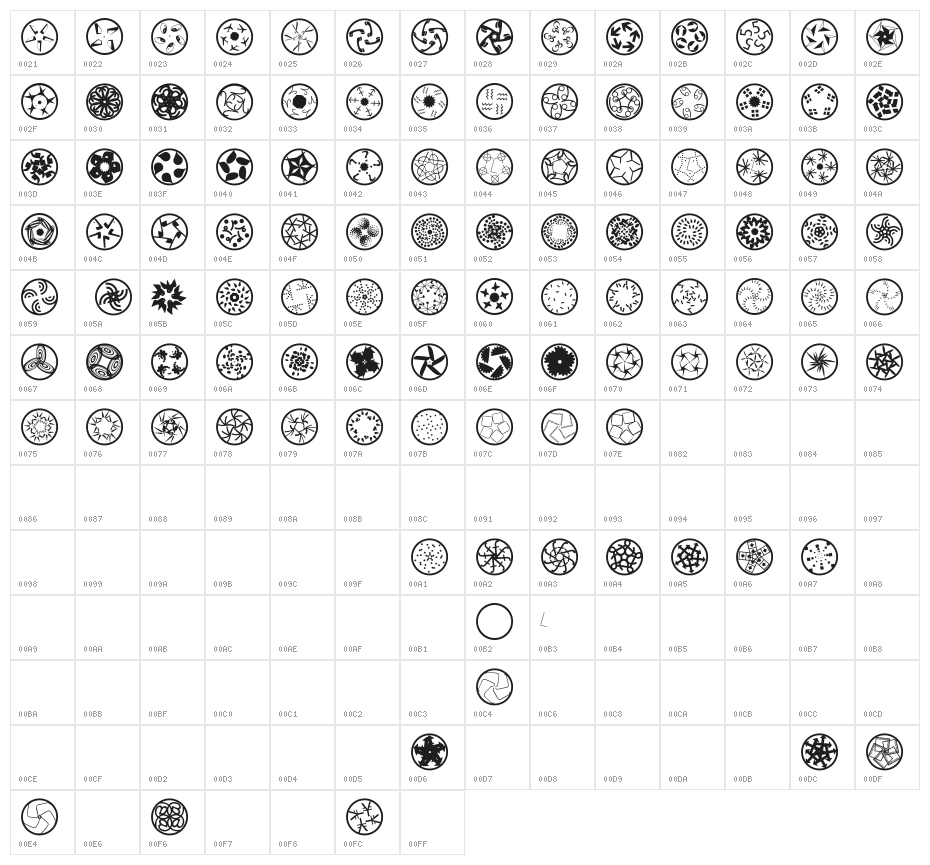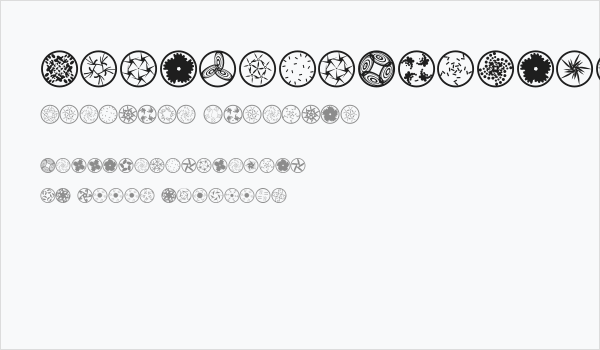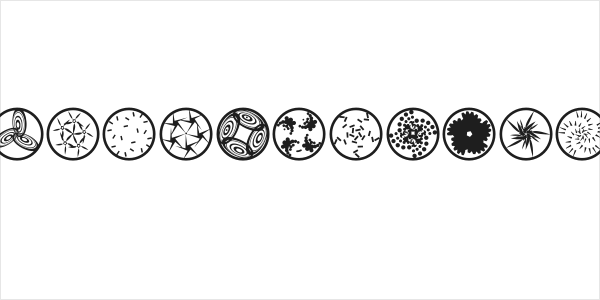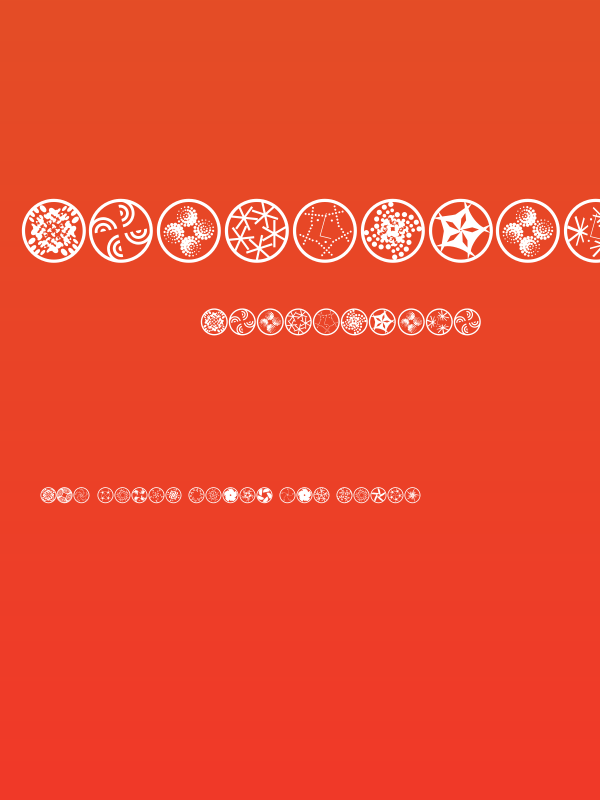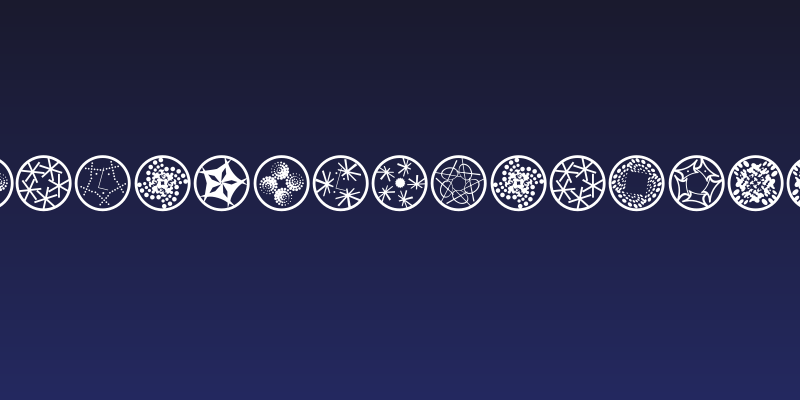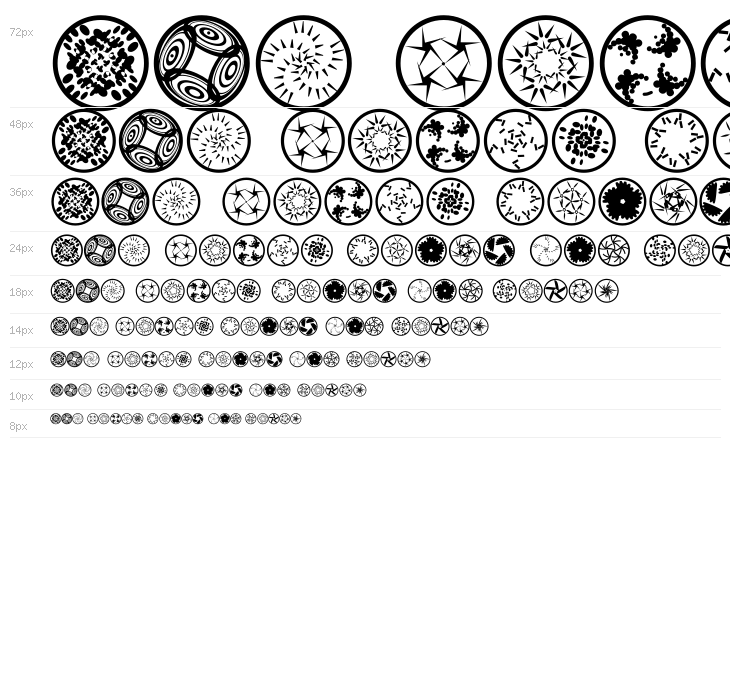
TypographicRosettas Font
TypographicRosettas Description
A collection of highly decorative, circular geometric symbols with intricate, abstract, and symmetrical patterns, each enclosed in a bold black outline. The designs vary widely, featuring starbursts, spirals, dots, and organic forms, evoking a sense of ornamental rosettes or mandalas rather than traditional alphanumeric characters.
| Overall Style | Decorative, Abstract, Ornamental |
| Use Case | Logos, Decorative elements, Icons, Pattern fills |
| Proposed Projects | Logos, decorative borders, pattern design, branding, packaging, digital art, tattoo design, iconography. |